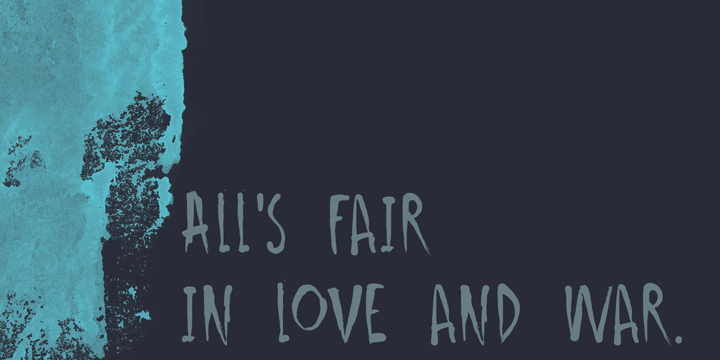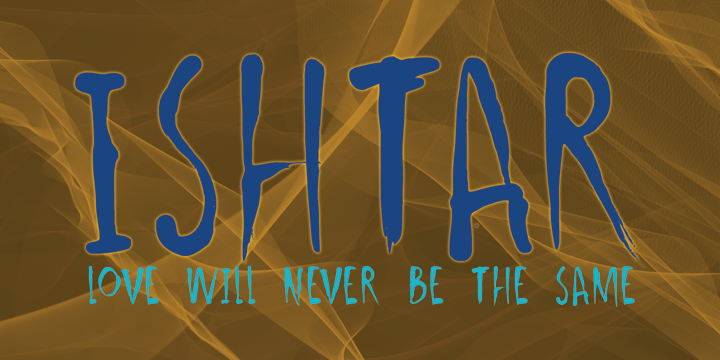
Ishtar
Font Family by Hanoded
Ishtar was the Babylonian goddess of war, fertility, love and sex - all in all a lethal combination. She wasn't the sweetheart her lovers had hoped for; I guess the ?war? part in her resume is a dead give-away. Ishtar font is no sweetheart either: it doesn't have a real baseline and its spooky character might not be everyone's cup of tea. It does have a certain charm, however, and befitting a Babylonian goddess, it comes with Babylonian language support!